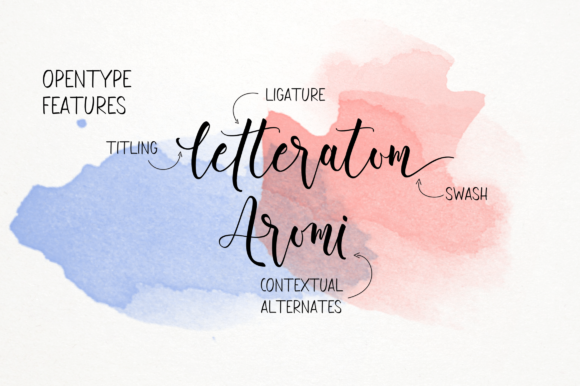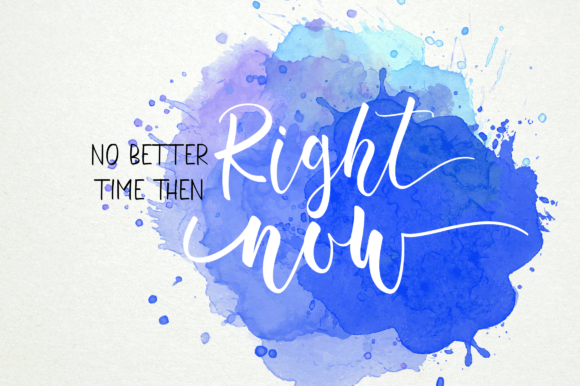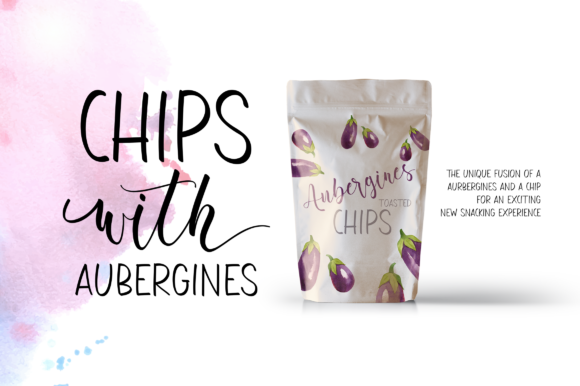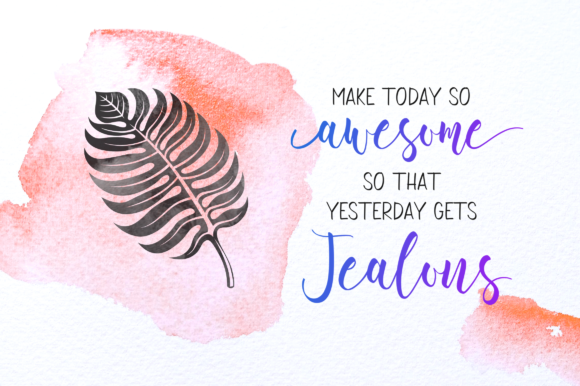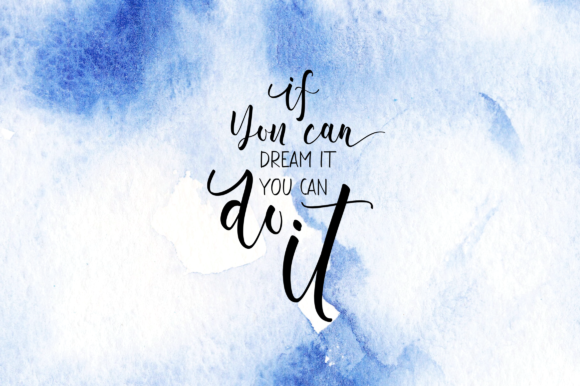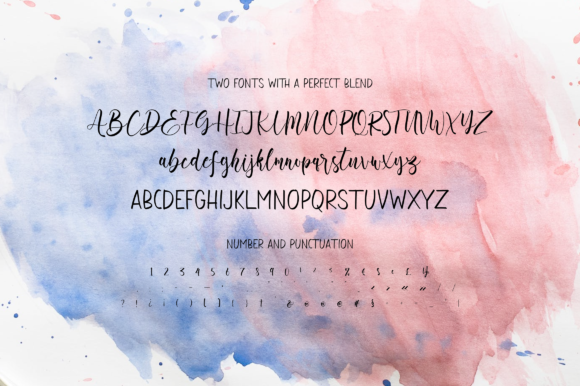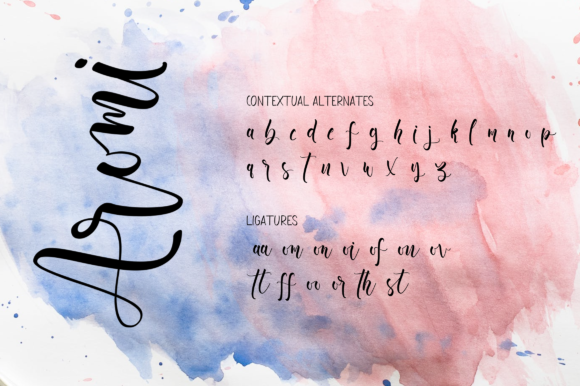
HomeScript FontsAromi Font Script Fonts Aromi Font FacebookXPinterestWhatsApp Aromi Font Poster 2 Aromi Font Poster 3 Aromi Font Poster 4 Aromi Font Poster 5 Aromi Font Poster 6 Aromi Font Poster 7 Aromi Font Poster 8 About Aromi Font Aromi is a modern and cool script font with amazing swashes. Use it to turn any design project into a standout! DOWNLOAD ON CREATIVE FABRICAThis font is sold and delivered by Creative Fabrica. Font Canyon may earn a commission if you buy through this link. People also explored Velinse Font Unicorn Lover Font Amblin Mono Font Cherry Bird Font Mandala Signature Font Bedug Font Love Live Font Botamil Elastic Font Im Spiegelland Font 441 0 TagsAromi Font Previous articleDecafe FontNext articleLittle Merry Font LEAVE A REPLY Cancel reply Comment: Please enter your comment! Name:* Please enter your name here Email:* You have entered an incorrect email address! Please enter your email address here Website: Save my name, email, and website in this browser for the next time I comment. Personal Use Free Gagalin Personal Use Free Read more about this font Aline Personal Use Free Read more about this font Aragon Personal Use Free Read more about this font Heart Personal Use Free Read more about this font BLOG Best Fonts for YouTube Videos: Make Your Thumbnails Stand Out Best Fonts for YouTube Videos: Make Your Thumbnails Stand Out Choosing the right font can make a massive difference in how your YouTube videos perform.... Top 7 Google Fonts Alternatives for Faster and Privacy-Friendly Web Design (2025) Best Fonts for T-Shirt Design – Top 2025 Picks Top 10 Handwritten Fonts That Elevate Your Designs